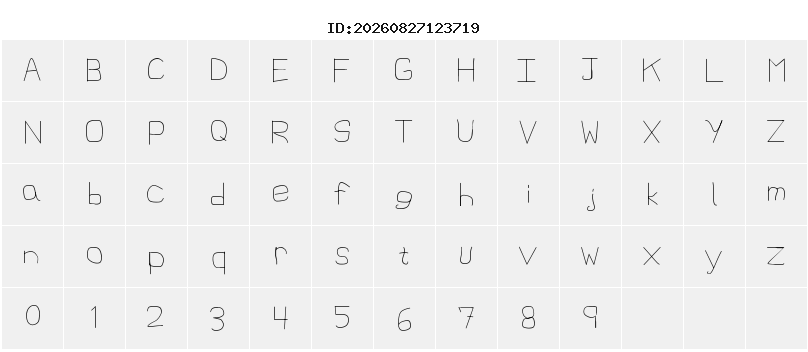
• Font Name: 1st Handwritten
• Designer: RAB1DRABB1T
• Description: 1st Handwritten Regular font by RAB1DRABB1T
About 1st Handwritten.ttf
1st Handwritten.ttf is a modern, elegant sans-serif font designed for ultimate readability and visual harmony. Perfect for branding, headlines, web design, and print materials.